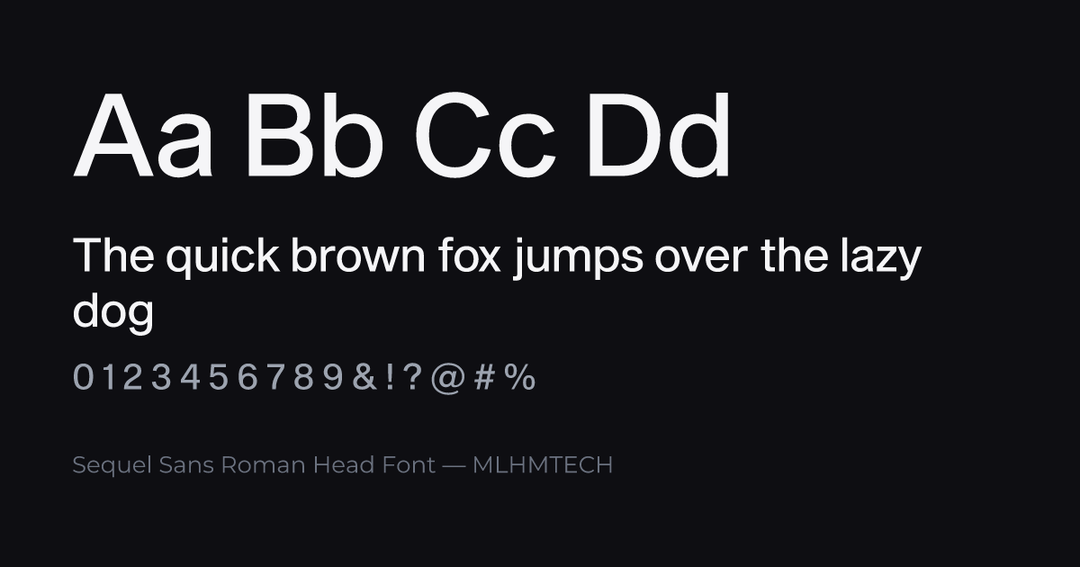
Sequel Sans Roman Head Font
Sequel Sans Roman Head is a versatile sans-serif font with a clean, geometric design, ideal for headlines and branding projects.
Sequel Sans Roman Head is a high-quality sans-serif typeface that combines geometric precision with a modern, approachable feel. Its balanced proportions and clear legibility make it a top choice for headlines, titles, logos, and other display uses.
This font is part of the Sequel Sans family, known for its extensive range of weights and styles. The Roman Head variant offers a classic yet contemporary look, suitable for both print and digital media. Whether you're designing a brand identity, a poster, or a website, this font adds a touch of professionalism and clarity.